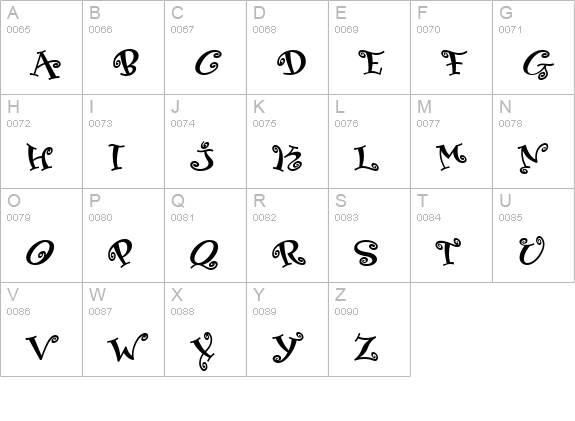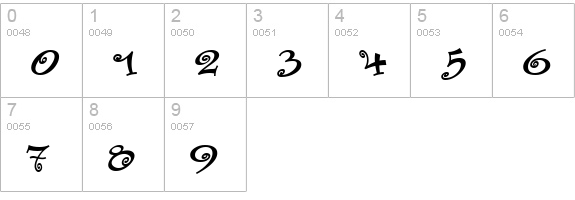
PFSwinger Luscious Font Details
The PFSwinger Luscious font exudes elegance and sophistication with its graceful curves and stylish design. This font is perfect for adding a touch of luxury to your projects, whether it be invitations, logos, or branding materials. Its flowing lines and intricate details make it a standout choice for any design that requires a touch of glamour. What's even better is that this stunning font is available for free download at FontsMarket.com. So you can easily elevate your designs without breaking the bank. Don't miss out on the opportunity to add a touch of lusciousness to your projects with the PFSwinger Luscious font. Download it today and let your creativity soar!